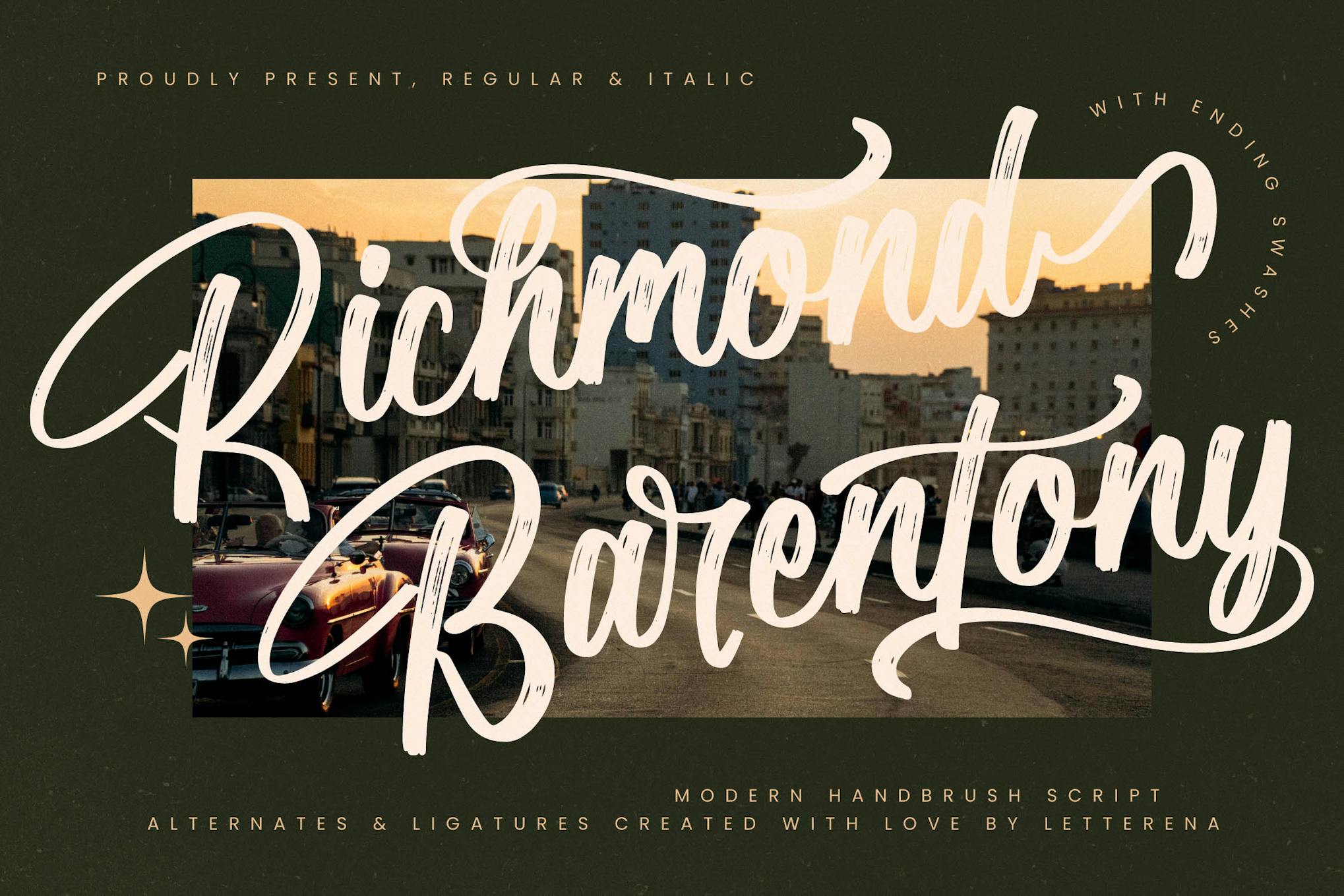
Richmond Barentony Modern Handbrush Script Font
Richmond Barentony Modern Handbrush Script Font Free Download offers a sophisticated and artistic touch to any creative project. For commercial use, you must purchase this font, but you can download it for free for testing purposes. This versatile typeface is perfect for a wide range of applications, including elegant wedding invitations, luxury branding, stylish social media graphics, heartfelt greeting cards, and upscale product packaging. What makes this font so exciting is its authentic, hand-painted texture and flowing, expressive script, which give your designs a unique and personal feel. The Richmond Barentony font family includes a range of styles and features, such as a Regular script, a more refined Bold version, and a collection of swashes and alternates, providing you with a complete and flexible design solution.
This isn’t just a font; it’s a stroke of genius. The design of Richmond Barentony Modern Handbrush Script is inspired by a modern, artistic aesthetic, with its fluid, confident strokes and genuine brush texture. Its distinctive, free-flowing look ensures that your headlines and titles will be both memorable and highly engaging. Whether you’re a designer crafting a brand identity that needs to be chic and artistic, or a creative working on a project that adds a touch of bespoke elegance, this typeface provides the perfect foundation. The carefully crafted letterforms and natural connections between characters ensure a harmonious flow that is easy on the eyes and aesthetically pleasing in any context.
The versatility of the Richmond Barentony font family is one of its greatest strengths. You can use the regular script for an authentic, handcrafted feel, and the bold version for headlines that stand out with a confident and stylish presence. The included swashes and alternates allow you to customize your text and create unique typographic compositions that feel handcrafted and original. This flexibility makes it an invaluable asset for designers who need to create custom content that feels both contemporary and personal. It's a font that works hard, delivering a look that is both stylish and full of character, ensuring your designs always make a sophisticated impression.